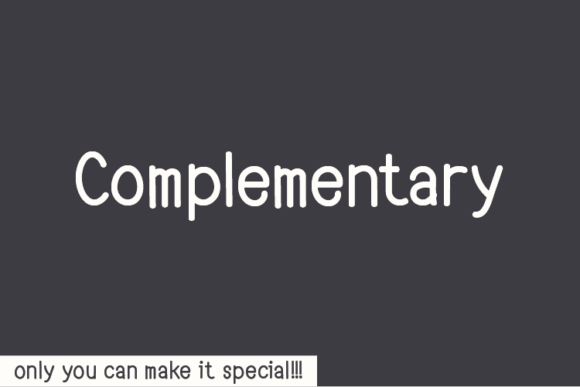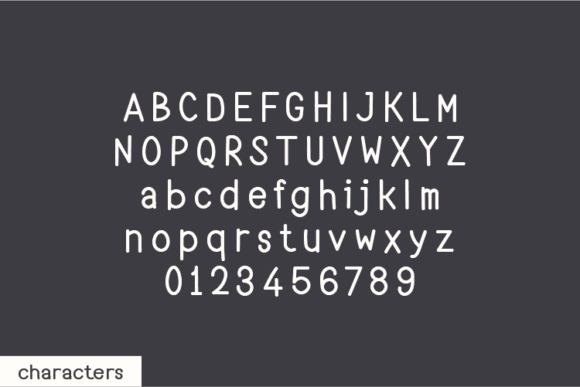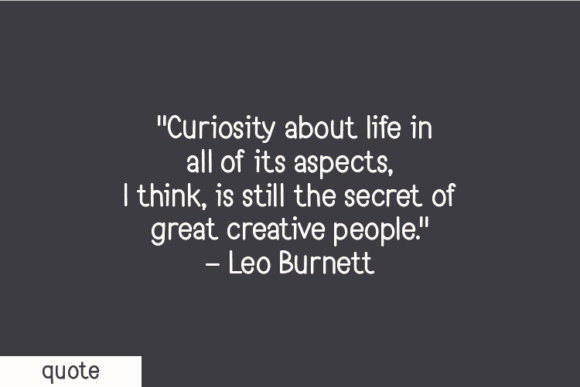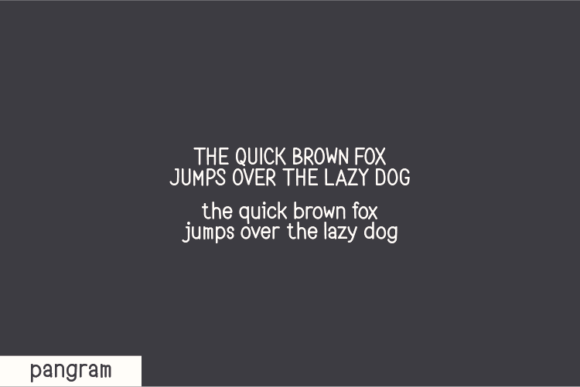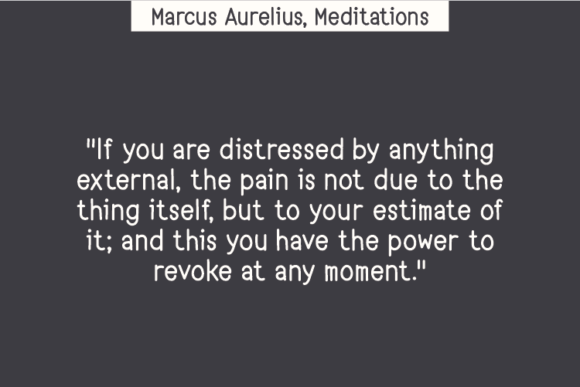
Complementary Font
About Complementary Font
The Complementary Font Download is a natural handwritten typeface crafted to reflect authenticity and individuality. Unlike digital fonts that are heavily modified, Complementary was designed without changing a single node in each character’s indentation. This unique approach preserves its raw quality and organic flow, giving the font a genuine handwritten feel that looks both artistic and personal.
Because of its smooth strokes and natural structure, Complementary works well in countless creative applications. It balances casual personality with clear readability, making it suitable for both personal and professional projects. Whether you’re working on quotes, notes, t-shirts, posters, invitations, or product packaging, this font adapts beautifully to enhance your design with originality.
Features of Complementary Font
When you download the Complementary Font, you gain features that make your projects both creative and professional:
• Authentic handwritten design created without altering nodes
• Organic strokes that capture the natural rhythm of handwriting
• Complete character set with uppercase, lowercase, numbers, and punctuation
• Readable yet creative style that works for text and display purposes
• Versatility for digital designs, print projects, and branding
Best Uses for Complementary Font
The Complementary Font Download fits seamlessly into a wide variety of creative projects. For example, it is excellent for inspirational quotes, giving your words a personal and heartfelt touch. It also looks striking on t-shirts, tote bags, and hoodies, making apparel unique and eye-catching.
In addition, Complementary adds charm to invitations, greeting cards, journals, and planners, where a natural handwritten style makes the design feel warmer and more intimate. It is also a strong choice for product packaging and labels, particularly for handmade or eco-friendly items. Furthermore, it enhances logos and branding projects, creating a handcrafted and distinctive identity. Finally, it makes a statement in posters, flyers, and event promotions, where authenticity captures attention.
Why Choose Complementary Font
Designers prefer the Complementary Font Download because it combines originality with practicality. By leaving every indentation untouched, the font retains the authentic feel of handwriting. This handcrafted style helps designs stand out while creating a stronger emotional connection with viewers.
Unlike standard handwritten typefaces, Complementary provides the perfect balance of creativity, readability, and uniqueness. It is casual enough for personal projects yet polished enough for branding and professional work. This balance makes it a versatile and reliable typeface for any creative toolkit.
The Complementary Font Download is a natural handwritten typeface that blends authenticity with versatility. With its organic flow and raw strokes, it is ideal for quotes, apparel, packaging, posters, invitations, and more.